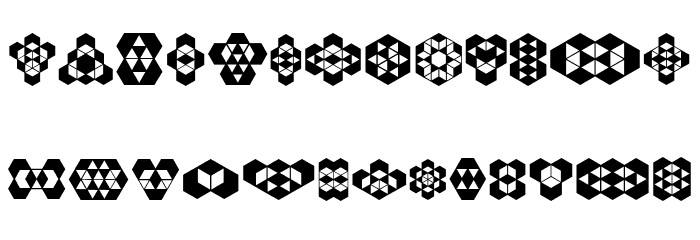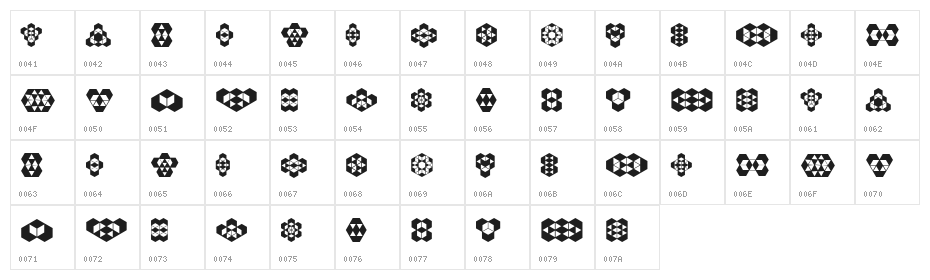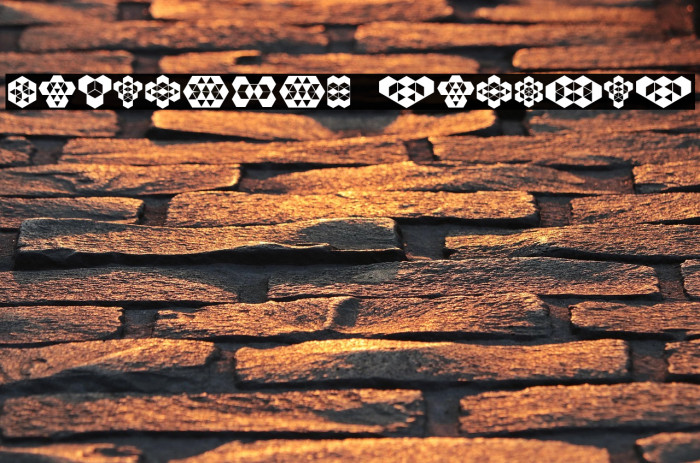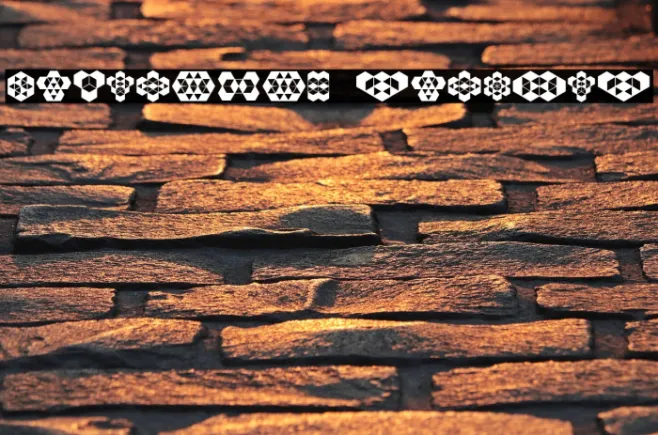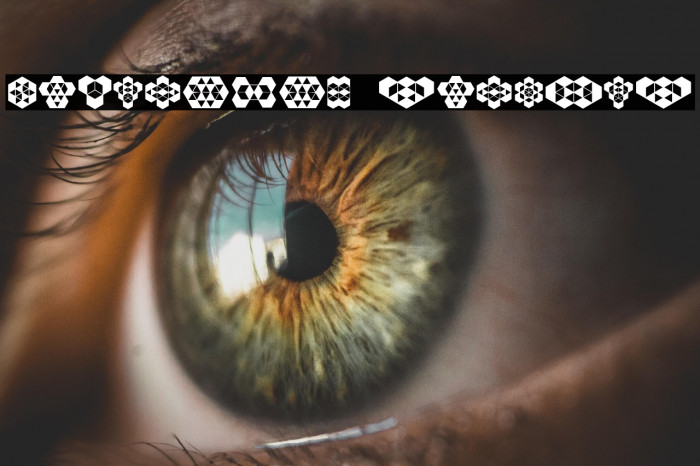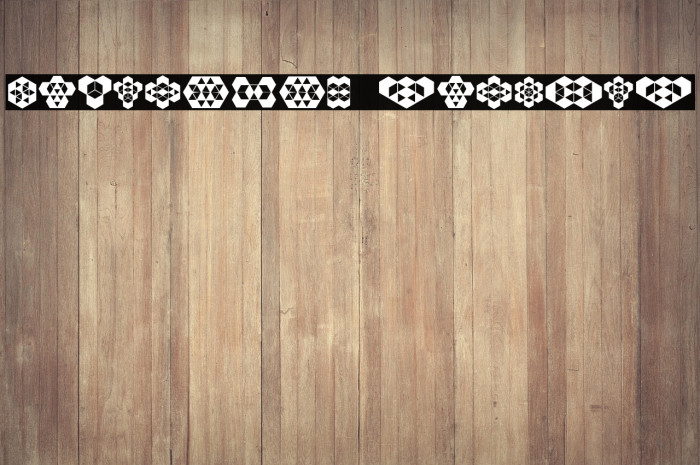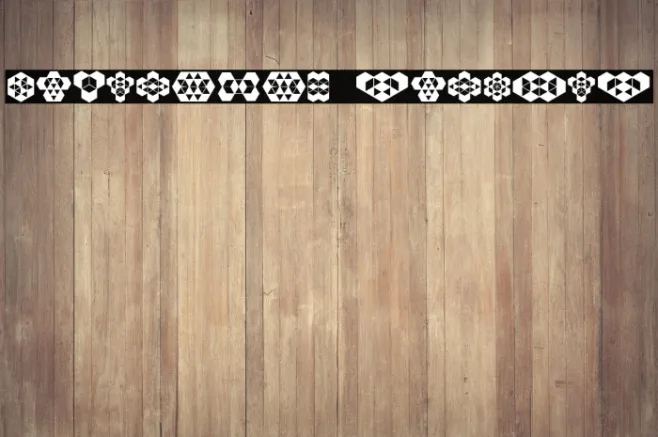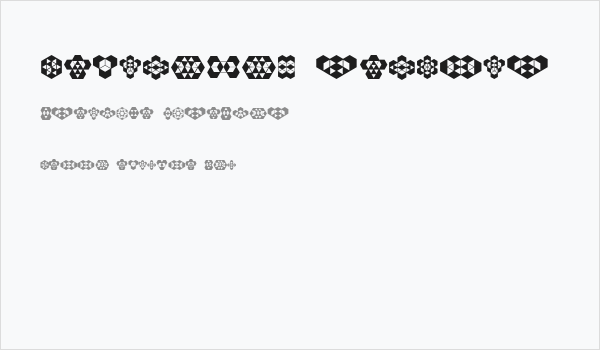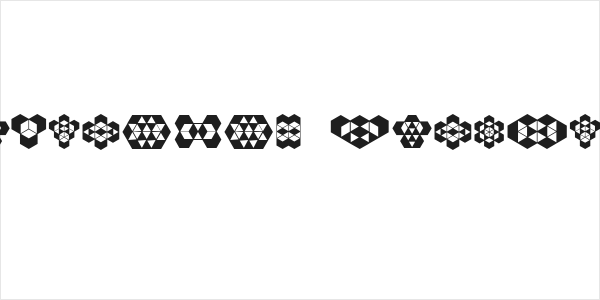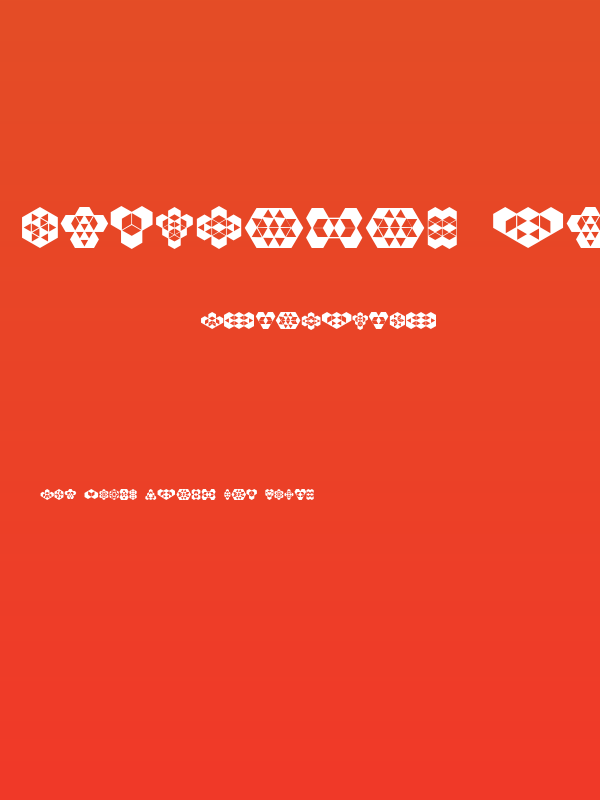
Hexagonos Regular Font
Hexagonos Regular Description
This design features a series of hexagonal shapes that create a visually striking pattern. Each character is constructed from a combination of smaller geometric forms, primarily triangles, arranged within a hexagonal framework. The style is bold and eye-catching, with a strong emphasis on symmetry and repetition. The use of solid black shapes against a white background enhances the contrast and makes the pattern stand out. This design is more decorative than functional as a traditional font, offering a unique aesthetic that could be used in creative projects.
| Use Case | Logos, Posters, Digital Art |
| Proposed Projects | Ideal for use in modern graphic design projects, such as logos, posters, or digital art where a unique geometric pattern is desired. |